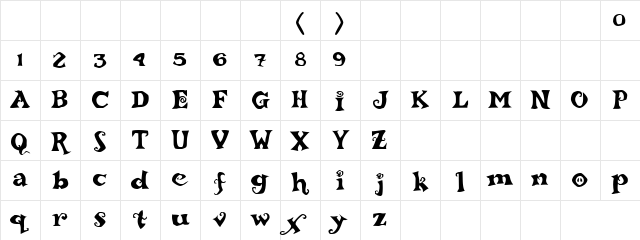
ReBucked Regular
Design Context for ReBucked
ReBucked is a composed and adaptable typeface that performs quietly and consistently across a wide range of design contexts.
Pro Tip: Use ReBucked in both headline and body roles to test its range before committing to a single application.